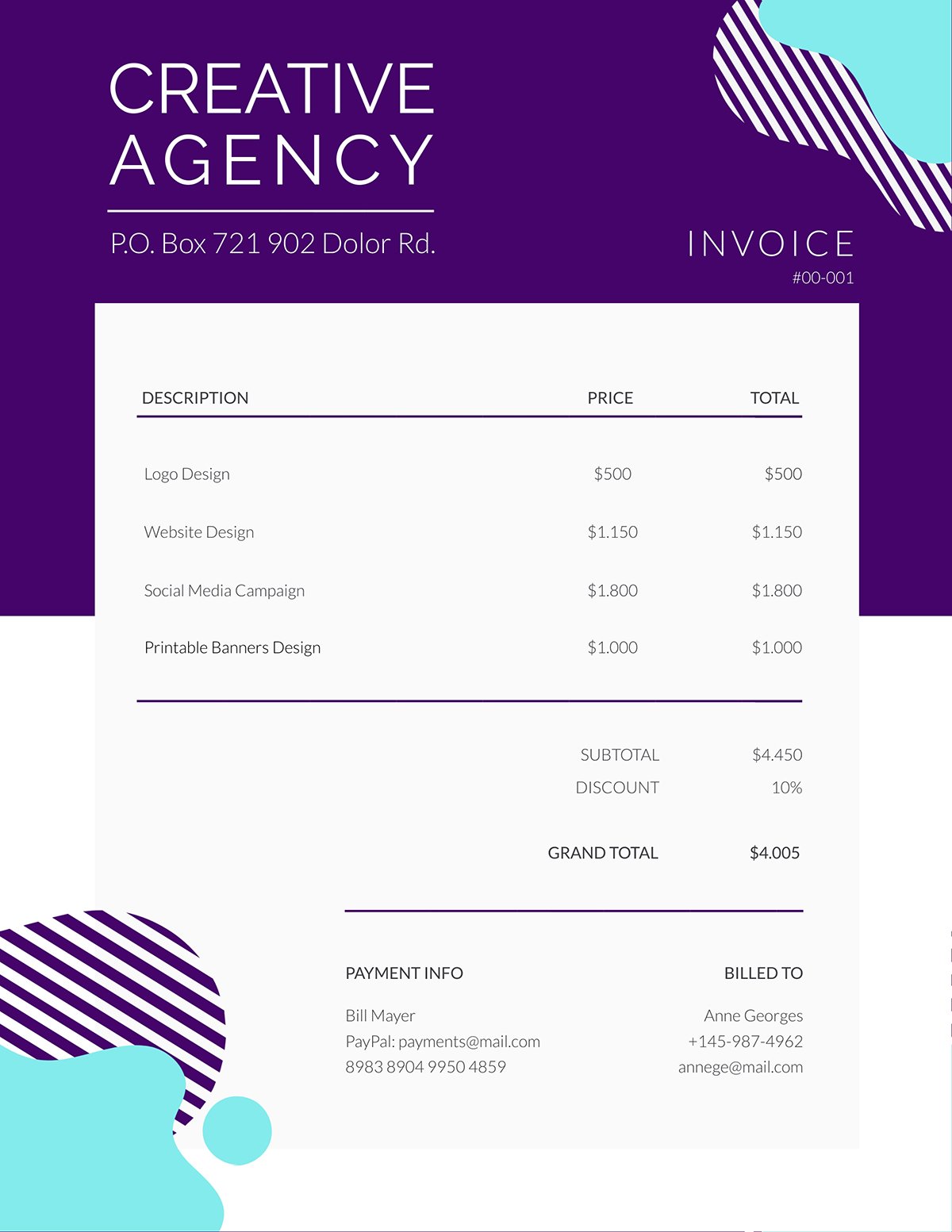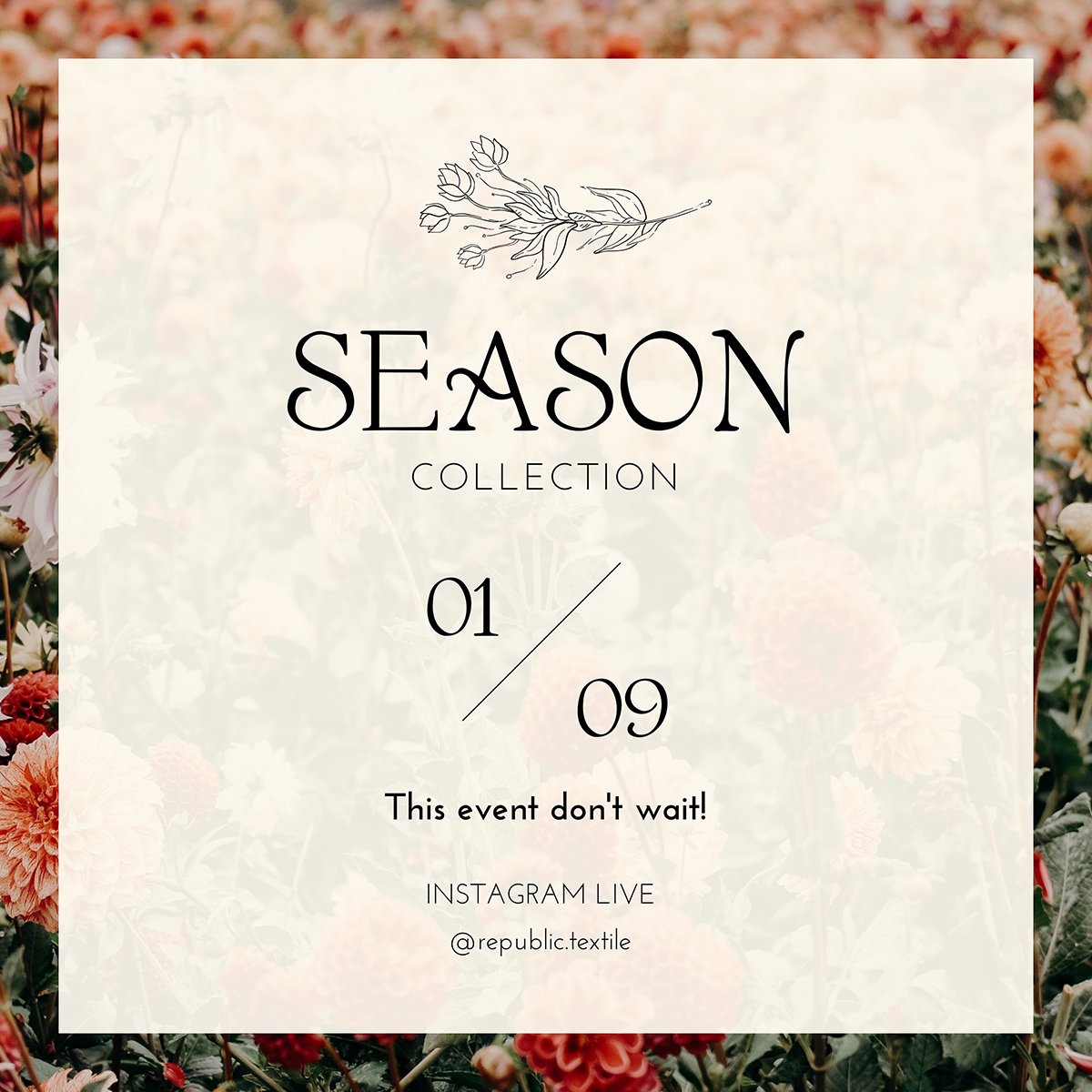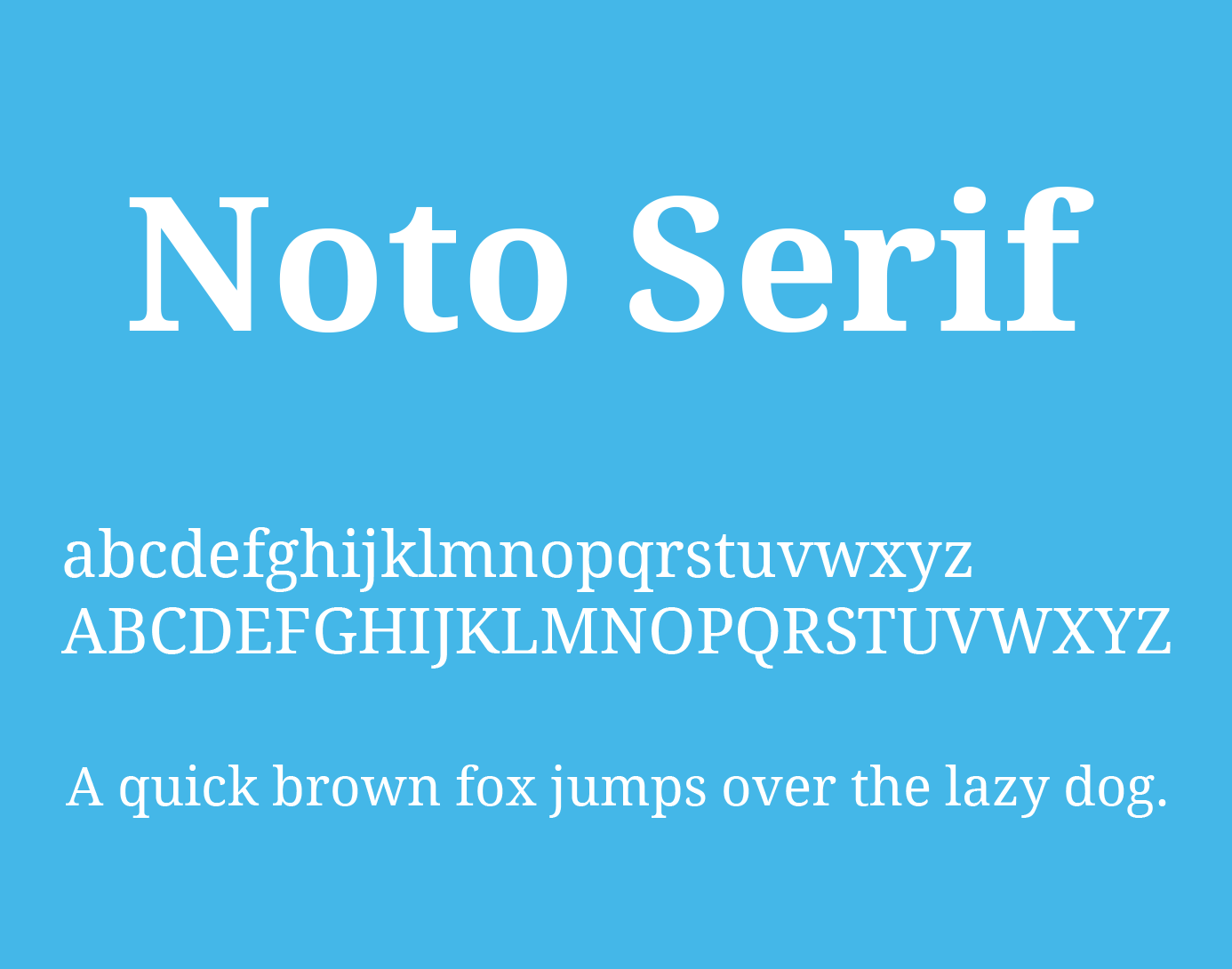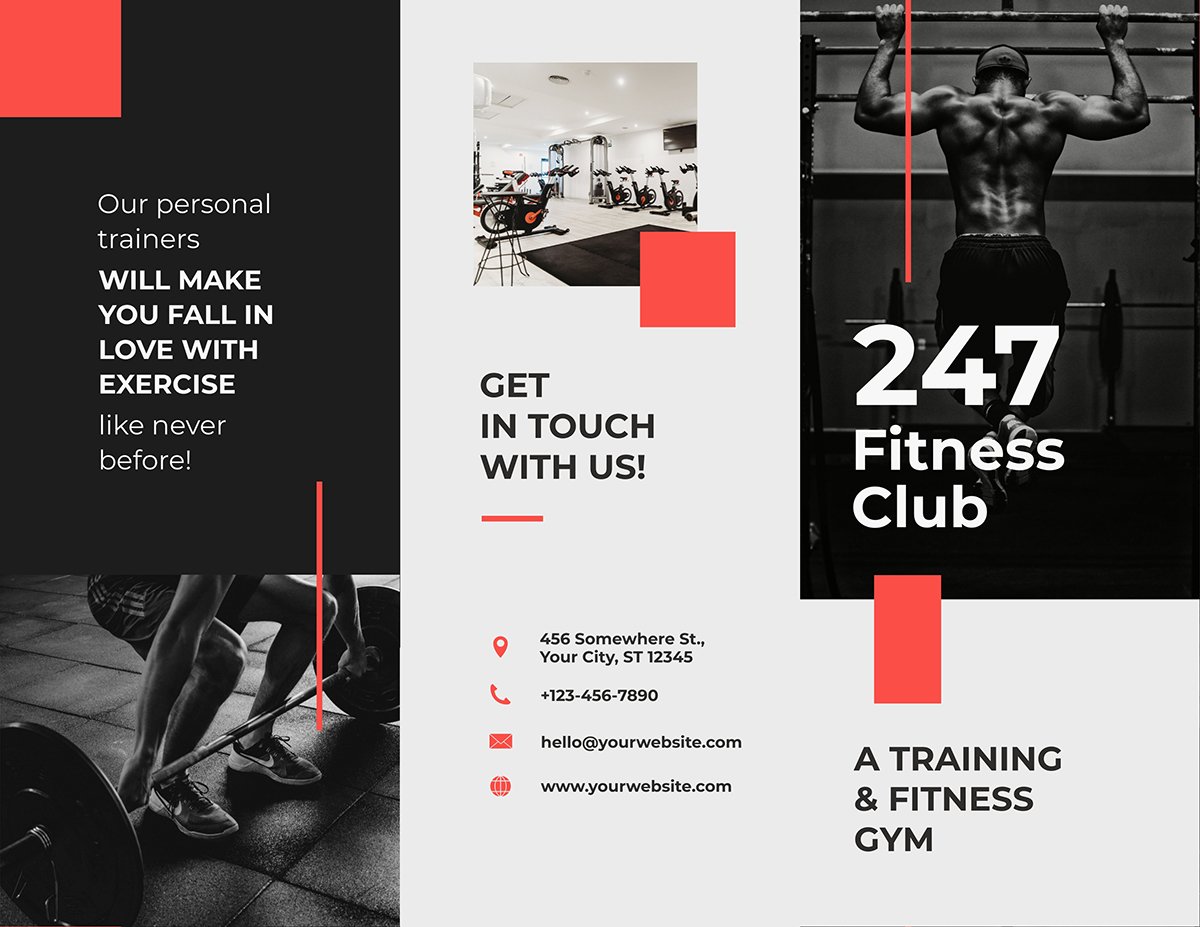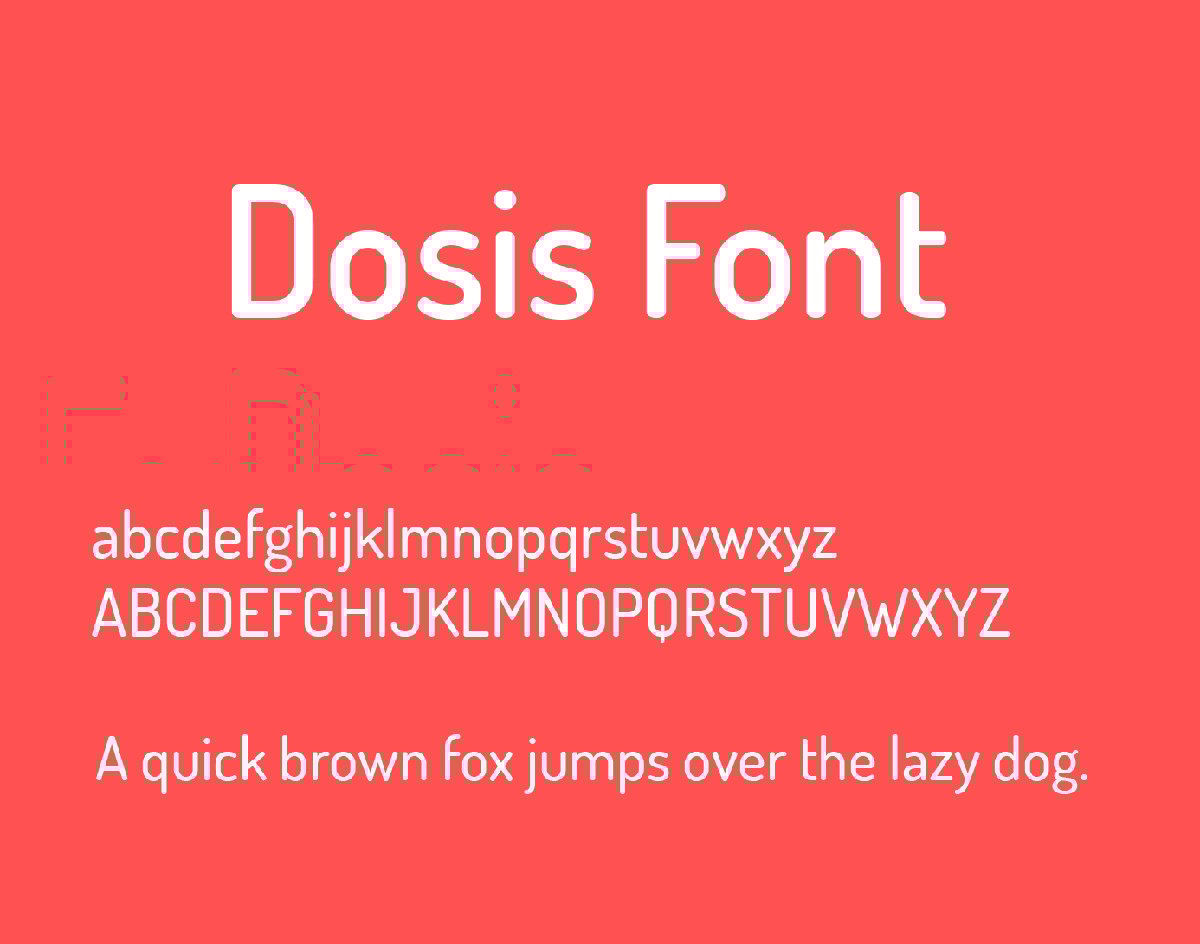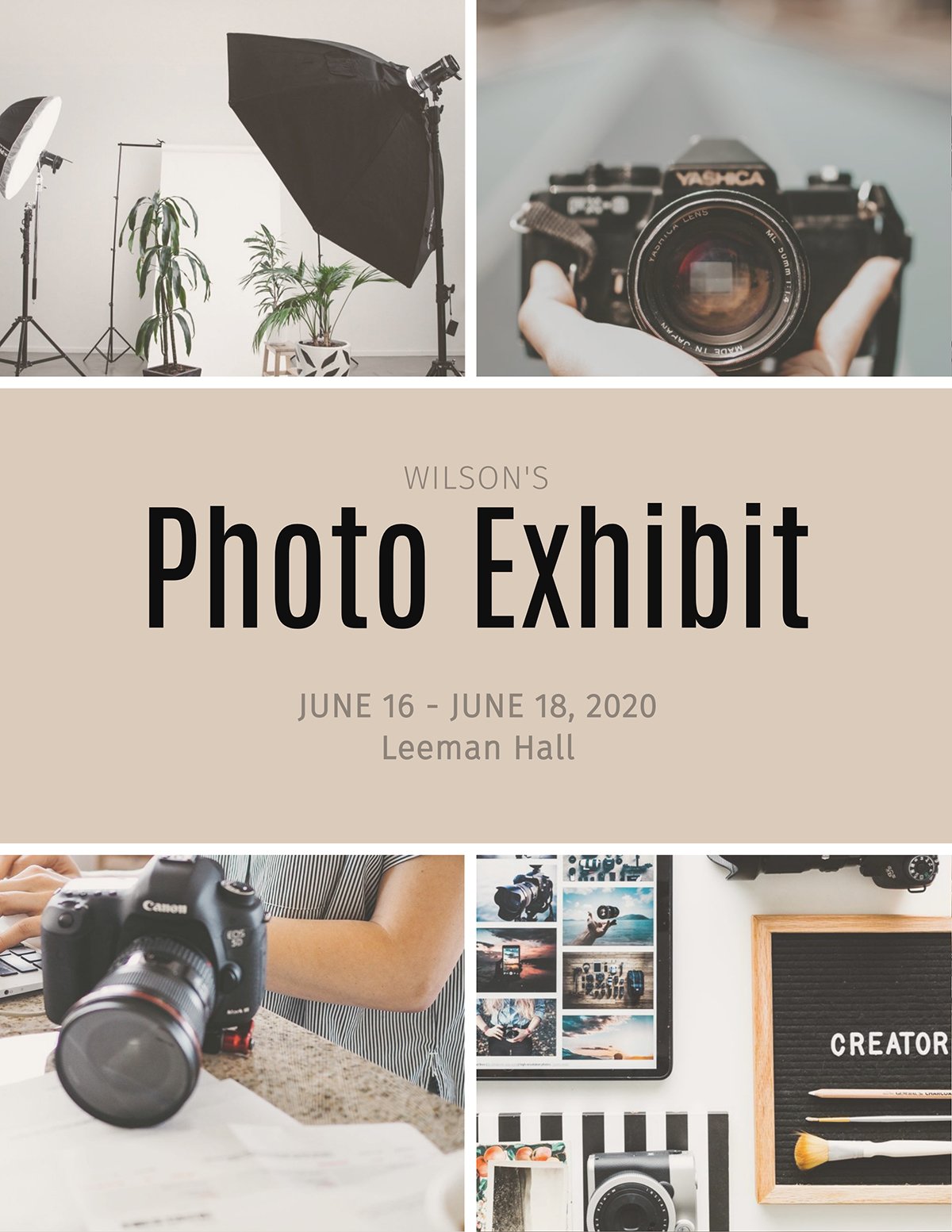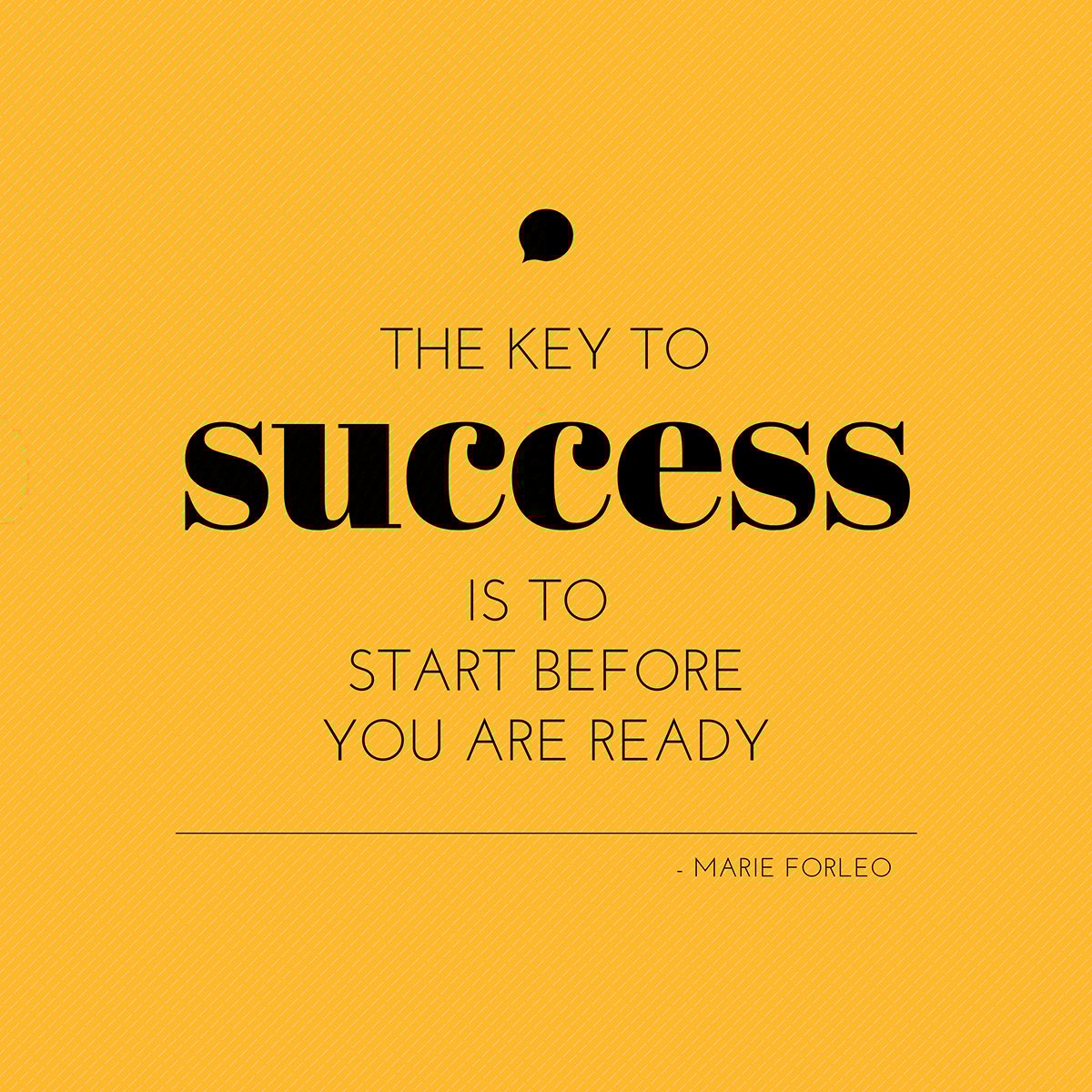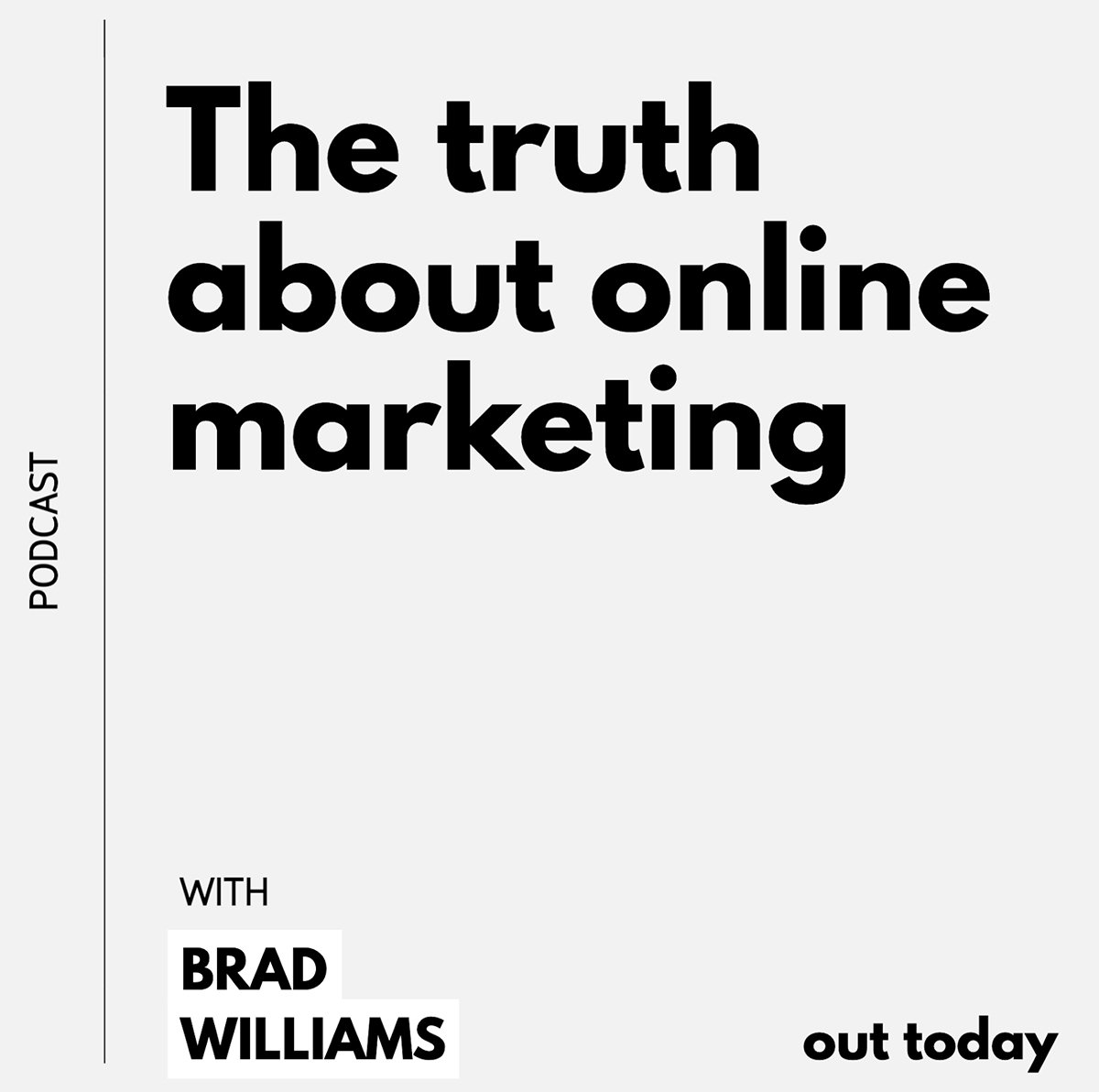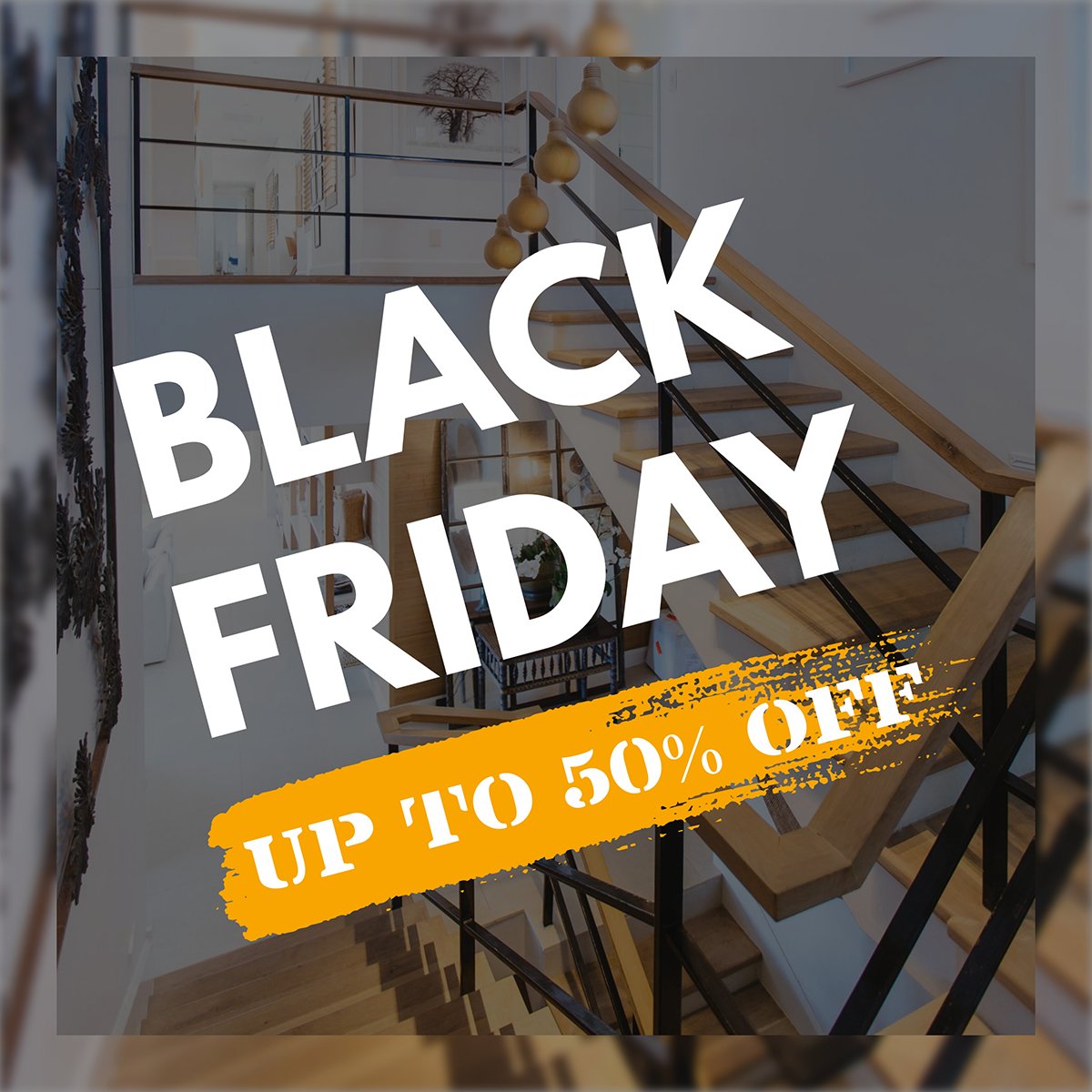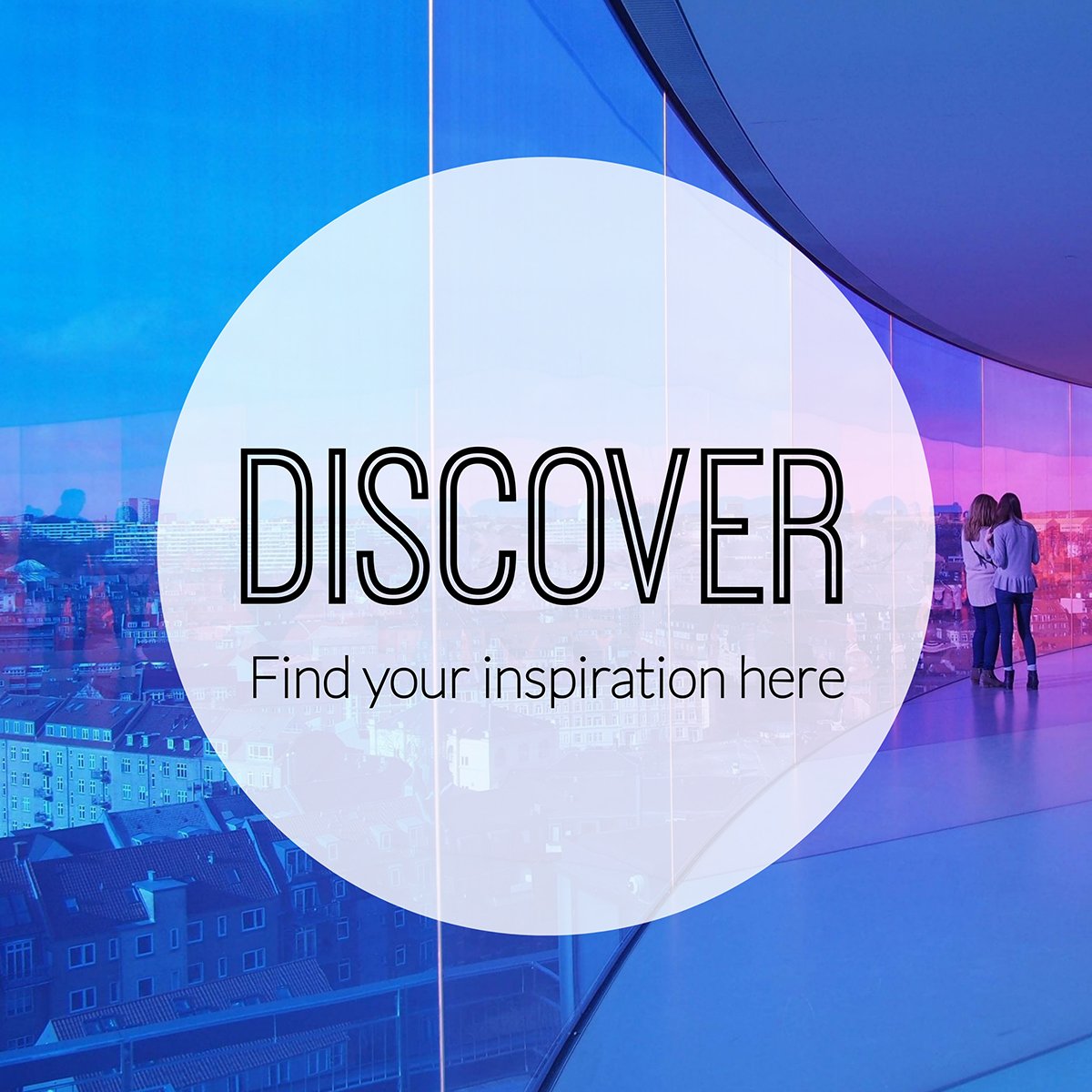
Typography and fonts make up the backbone of your brand. Along with your colors, textures and graphics, fonts are essential to creating brand elements for your design projects.
Our first category is Retro Fonts. These are fonts that use vintage elements in their composition. Retro fonts aren’t exactly vintage fonts but more of a modern take on vintage typography styles.
You can use Retro fonts in designs like brochures, posters, flyers, logos and business cards. Let’s get started.
Ansley Display is reminiscent of ‘Old West’ style posters and other vintage print art. The strong serifs make an impact when used in a header or title.
Trocchi was inspired by vintage typefaces from the late 1700s. This font is excellent for both titles and text. As a casual serif, it goes well with elegant brands that don’t take themselves too seriously.
The first script font on the list is Yellowtail. A bit loose, a bit orderly, the perfect mix of both. Yellowtail was inspired by the lettering of sign painters in the 1930s and looks great in display text elements.
Oregano font was inspired by calligraphy artist, Randy Holub. It works well on advertisements, flyers, social media graphics and greeting cards. This font is ideal for making a subtle statement without going over the top.
Theano Didot is a serif font elegantly inspired by Greek letters and calligraphy. Initially, this font was created only for use with the Greek alphabet but extended to Latin languages later. This font is ideal as a header but also works well as text.
Lora is a friendly font loosely inspired by calligraphy and handwritten type. The curvatures and subtle serifs are a refreshing combination for a serif font that works great as body text. It's also a great choice when selecting an accessible font for a more diverse audience.
This retro font goes back to medieval times. The Gothic style in Deutsch Gothic is solid and impactful. This font is a good choice for display headers that tell a particular story.
Of all the retro fonts on this list, this one is a little different. Visually it resembles writing from a gritty typewriter from the era of the Conquistadores. Exciting and very bold.
The second category on our list is script fonts. These are all calligraphic style types, most with ligatures between letters, although many also resemble handwriting. Script fonts come in many styles, from elegant to simple calligraphy and writing.
Journal is a casual script that feels like it’s been handwritten with a pen. Not an excellent font for long text or paragraphs but works well in short display titles or name labels.
Bilbo is a warm script brush font with a handwritten feel. It has a sister font with swashes for a more elegant look on display titles. This is a perfect font for greeting cards, t-shirts with catchy phrases or short paragraph text.
Playlist Script is a beautiful calligraphy style font reminiscent of beautiful handwriting on love letters. It matches well with a robust all-caps font for a fun pairing that works great on mugs, merchandise, t-shirts and social media.
Pacifico is a script font inspired by 1950s surf culture. It’s a bouncy and fresh script with ligatures between most letters. This free font looks great on large signs or friendly messaging on billboards.
Black Jack is a brush-style script font that looks great as a signature or in a quote graphic. This script font also fits in the elegant and retro categories because it’s so versatile.
Dancing Script is a relatable font that resembles tidy hand-lettering. With characters that differ in height, this font is perfect for projects that need a bit of personality and warmth.
Daniel is a hand lettering font with delicate movement and a minimalist style. The capital letters are large, take up space and make a visual impact. This is an excellent font for titles and signatures.
Selima is a unique brush script font perfect for vibrant social media graphics and blog titles. This fun hand-lettering font also works well with package design and labels.
Great Vibes is an elegant, flowing calligraphic script font ready to be used on wedding invitations and holiday greetings cards. This font is excellent for prim and proper design but pairs well with a strong sans serif font for a modern feel.